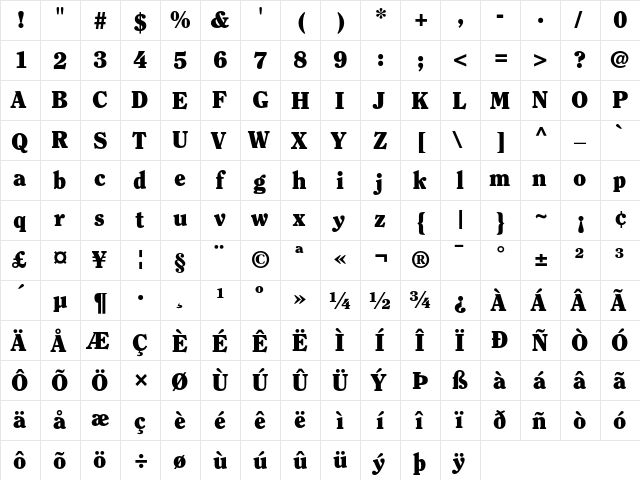
Clearface Regular
Design Context for Clearface Typeface
Clearface is a composed and adaptable typeface that performs quietly and consistently across a wide range of design contexts.
Pro Tip: Use Clearface in both headline and body roles to test its range before committing to a single application.